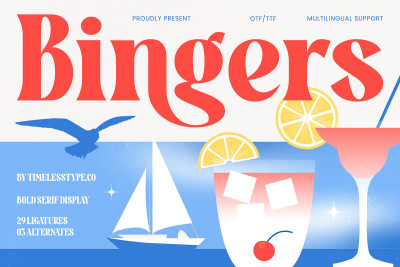
Bingers Bold Serif Display Font
Bingers Bold Serif Display offers a fresh typographic approach that balances visual appeal with exceptional legibility.
Add Bingers Bold Serif Display to your toolkit and discover how it elevates everything from quick social posts to complex brand identities.